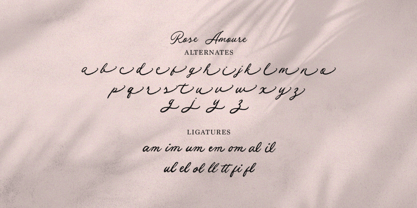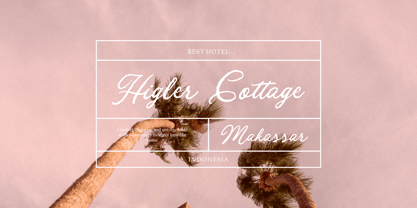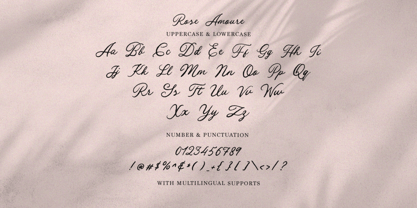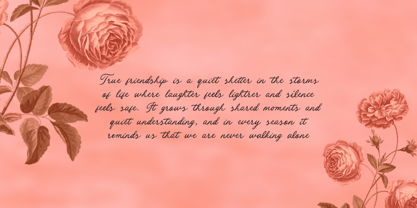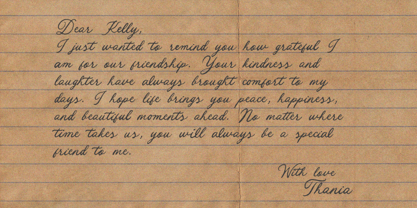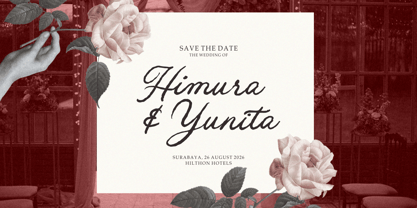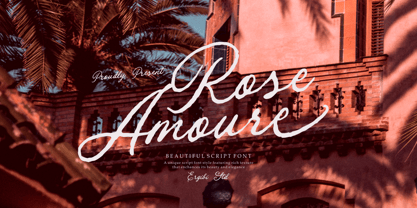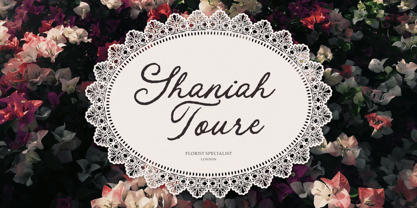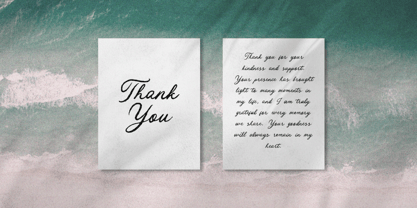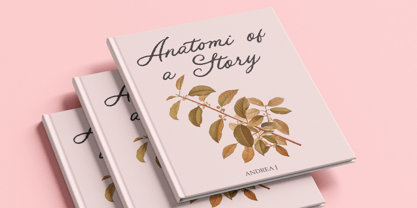
Rose Amoure
by Ergibi Studio
The Rose Amoure Font Family was designed by Riyadh Rahman and published by Ergibi Studio. Rose Amoure contains 1 styles. More about this family
Rose Amoure is an elegant handwritten script font that captures the essence of romance and refinement. Designed with flowing strokes, graceful curves, and delicate details, it brings a timeless and sophisticated feel to any creative work. Each letter is carefully crafted to create a natural, smooth rhythm that enhances readability while maintaining its artistic charm. This font is perfectly suited for a wide range of design purposes, including branding, wedding invitations, logos, packaging, and editorial layouts. Rose Amoure adds a soft, feminine touch and a sense of luxury, making it an excellent choice for projects that aim to convey beauty, warmth, and elegance. if you have any questions, don’t hesitate to contact us Ergibi Studio
Designers: Riyadh Rahman
Foundry: Ergibi Studio